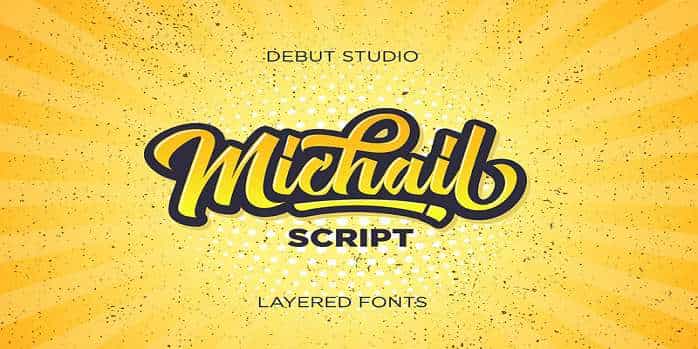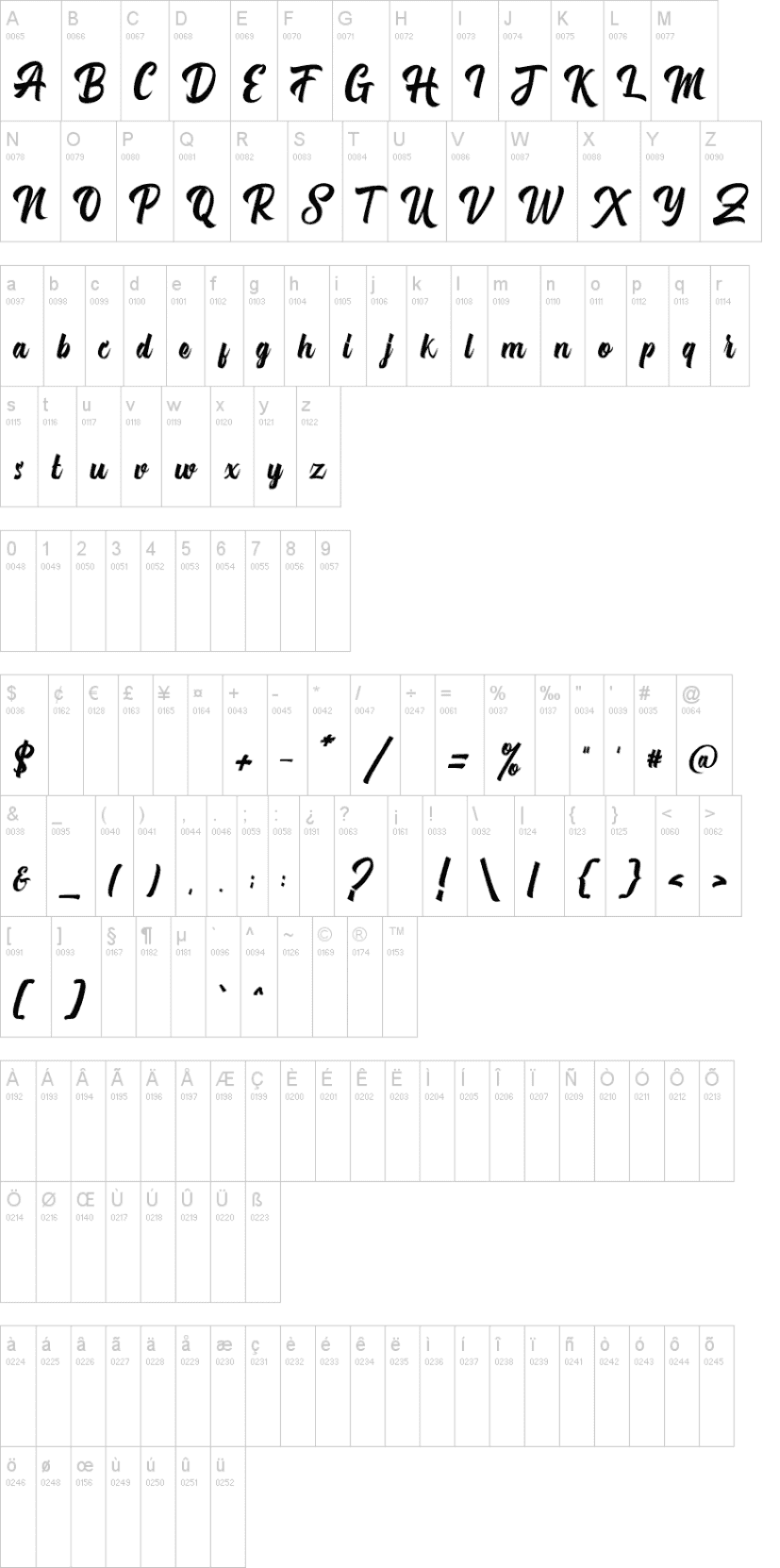
Michail Script is a Calligraphy font that has been created by Debut Studio and this font can be downloaded free of charge for personal use only. For the free version, all the letters from a to z and from A to Z are available along with a few other symbols as well.